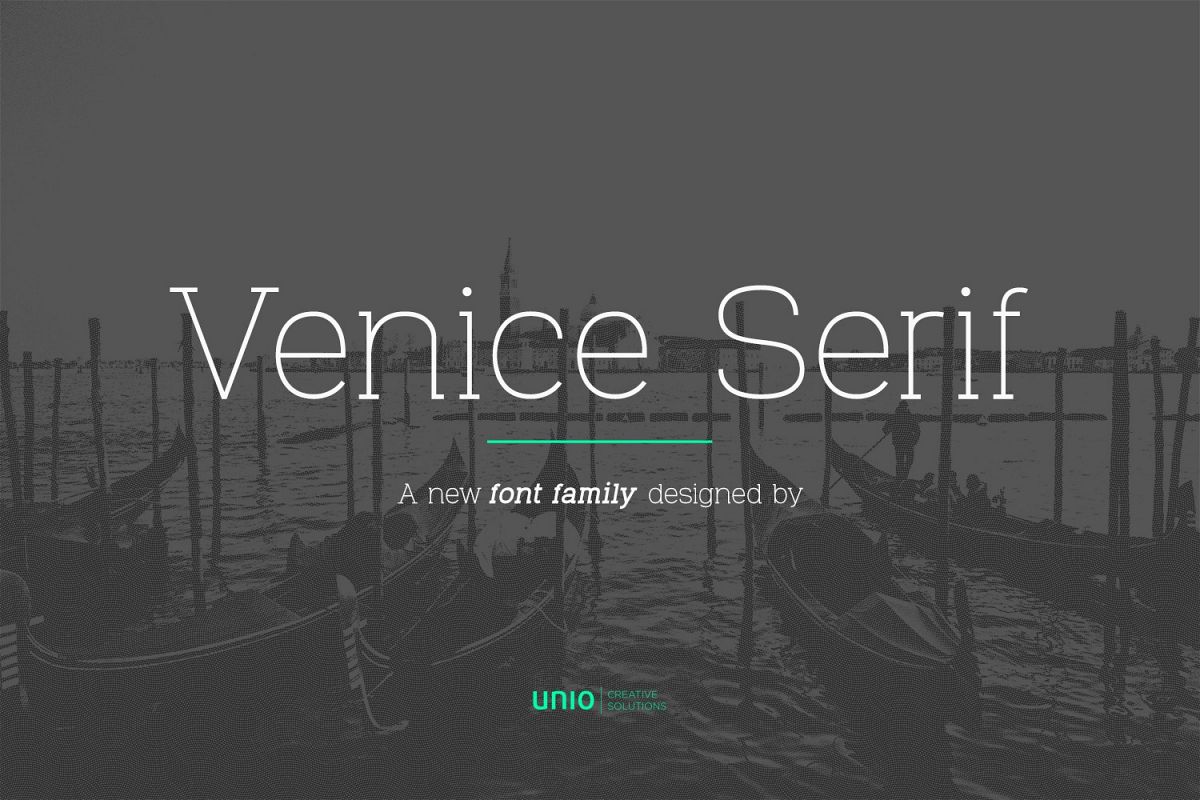
VeniceSerif
Unio proudly introduces “Venice Serif - Font Family”.
It took time to finalize this modern and functional serif font. The result is a fashionable typeface with a sleek structure, giving it a strong personality while still keeping readability high.
Venice Serif includes 195 characters glyphs and comprises six styles: four weights (light, regular, medium and bold) with corresponding true italics.This font family is suited for advertising, corporate design, packaging, editorial and branding. It’s optimized for screens, so it will be a good choice for Apps, Websites, e-Books and Magazines.